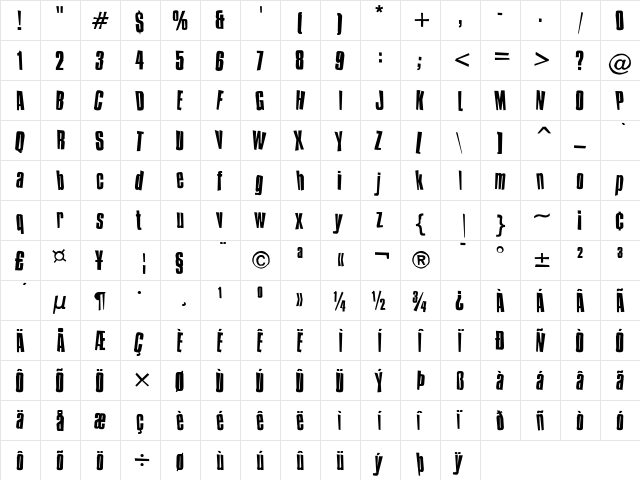
BlueSmolt Medium Font Preview
BlueSmolt Medium
BlueSmolt Medium Font Details
Design Context for BlueSmolt Typeface
BlueSmolt offers clean, dependable letterforms without strong stylistic allegiance, making it a practical choice for designers who need flexibility.